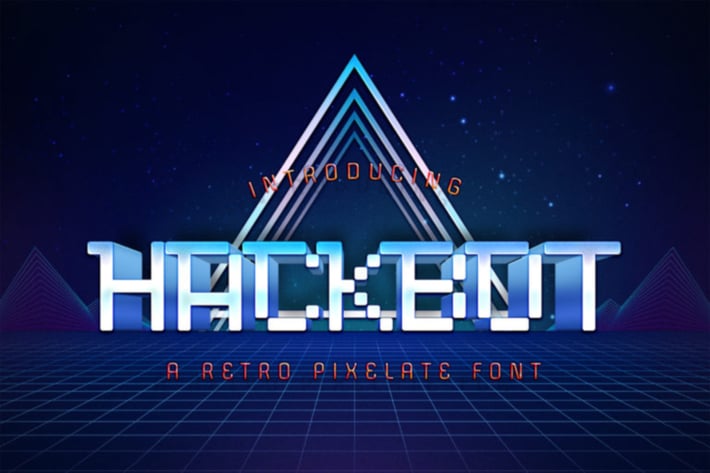
Hackbot - a Retro Pixelate Font
Hackbot is a font which is both retro-inspired and amusing to the eye. The gaps between the letterings allows you to feel vintage and travel back to the old times. It’s a font which uses a sans serif style of writing, but uses a retro design to make an overall unique font. It’s flawlessly suitable for promoting games, creating quotes, retro designs and much more.
– Lowercase
– Ligature
– Alternate
– Multilingual Support